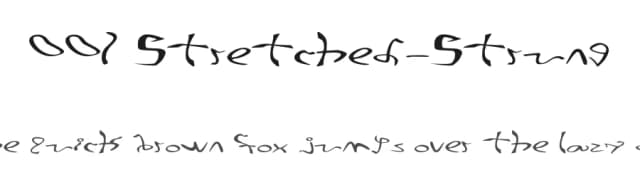
About Dorkified Distortion Font
Dorkified Distortion is a script & handwritten font designed by Shakima F. It includes 114 glyphs, a regular weight, TTF (TrueType) format, and 107 languages. Dorkified Distortion is free to download; check the license details on this page before commercial use. Script & handwritten fonts like Dorkified Distortion work best for wedding invitations, greeting cards, signatures, and elegant branding.
Dorkified Distortion Font is a script font that shines as a display or heading face. Pair it with a clean sans-serif or serif font for body text β the contrast creates a clear hierarchy while the two styles stay balanced and easy to read.
Dorkified Distortion Font
by Shakima F